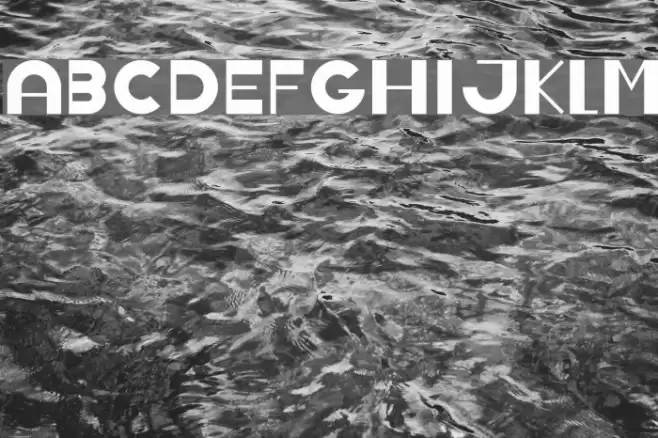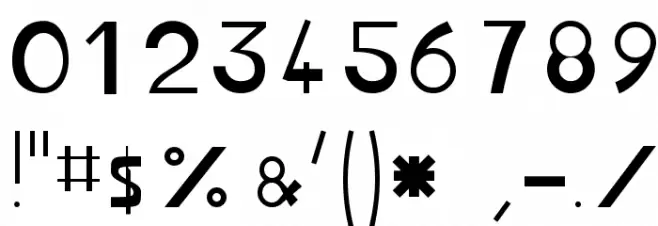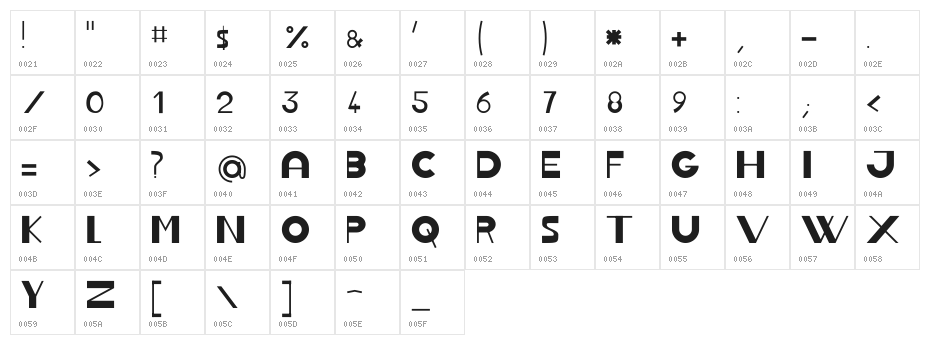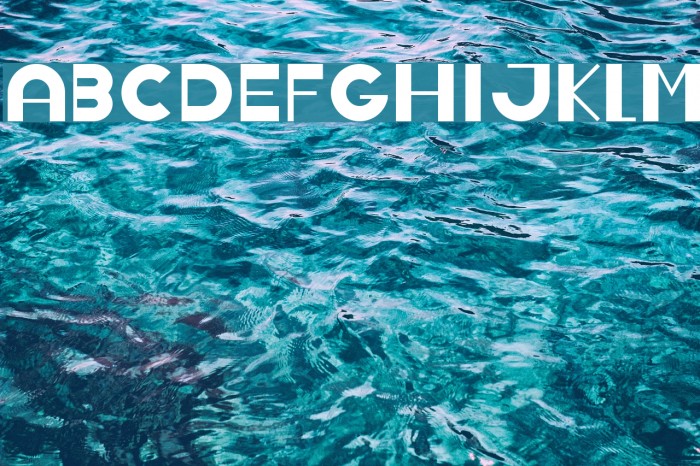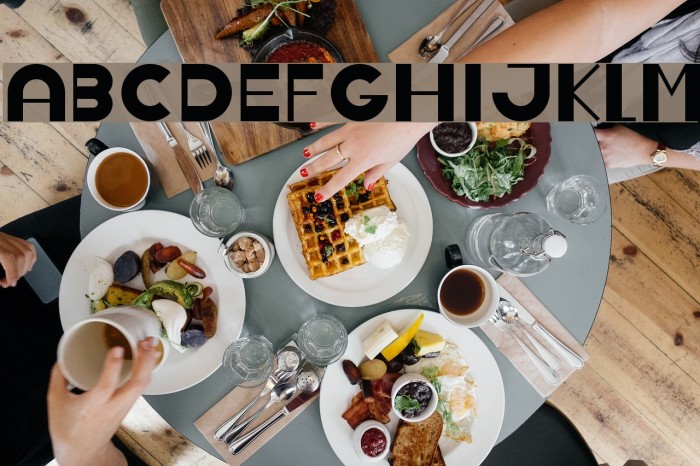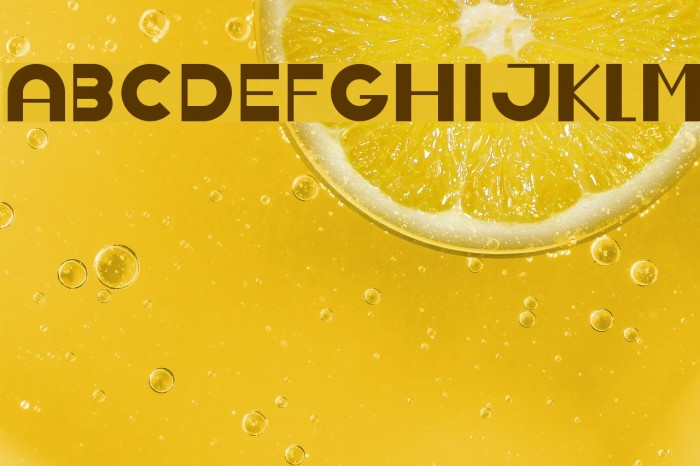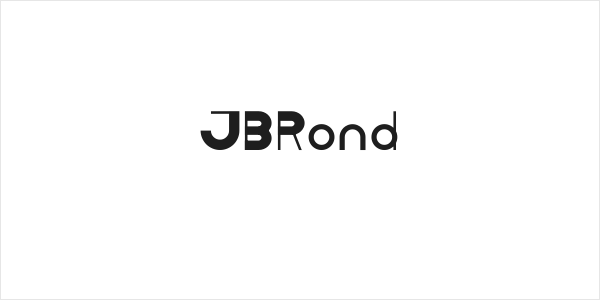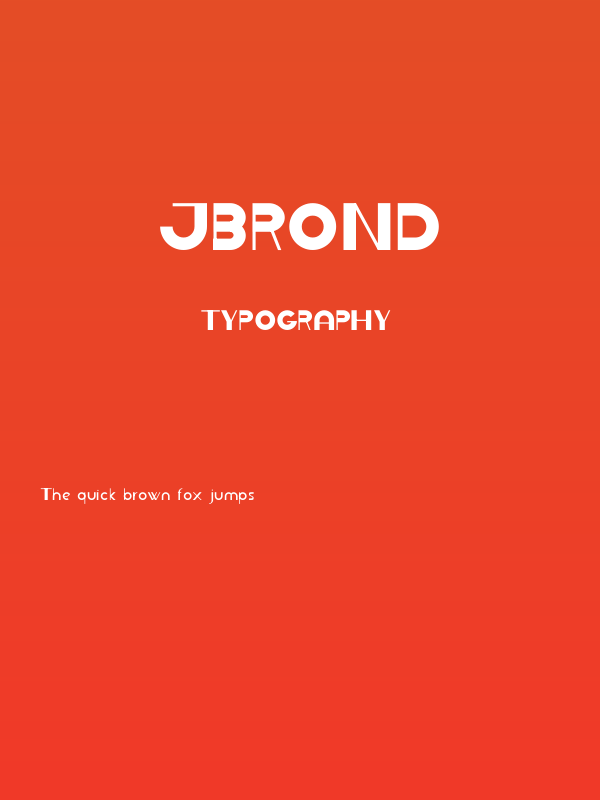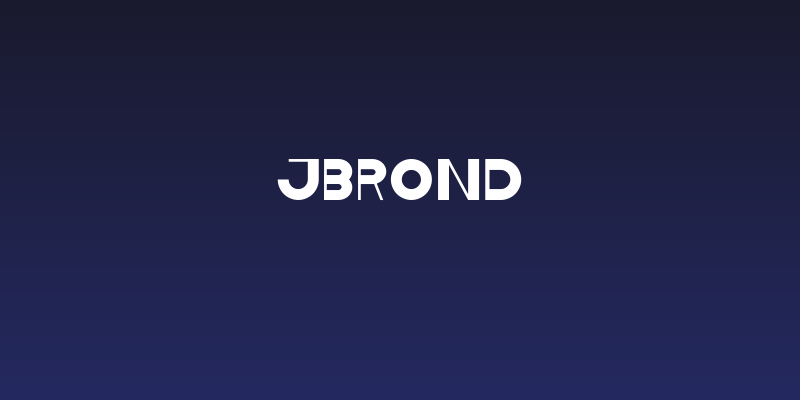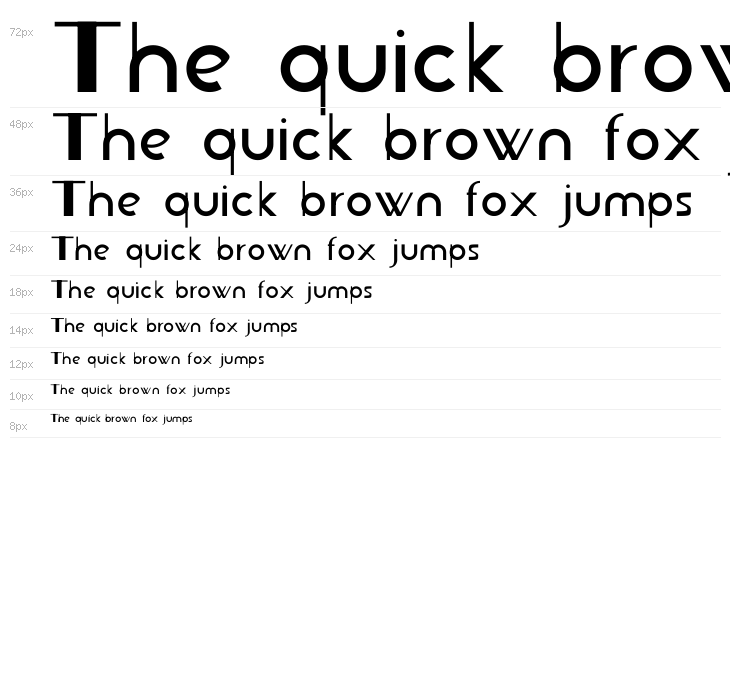
JBRond Font
JBRond Description
This font features a bold and modern design with clean, geometric shapes. The uppercase letters are strong and assertive, while the lowercase letters maintain a consistent roundness that adds a touch of friendliness. The numerals are clear and easy to read, making them suitable for various applications. Special characters are well-integrated, maintaining the overall aesthetic. The font's uniform stroke width and lack of serifs contribute to its contemporary feel, making it versatile for both digital and print media.
A bold, modern font with geometric shapes and a clean, contemporary style from Uncategorized fonts.
- Proposed Projects: Ideal for branding, advertising, headlines, and digital interfaces where a modern and bold statement is needed.
- Use Case: Headlines, Logos, Branding